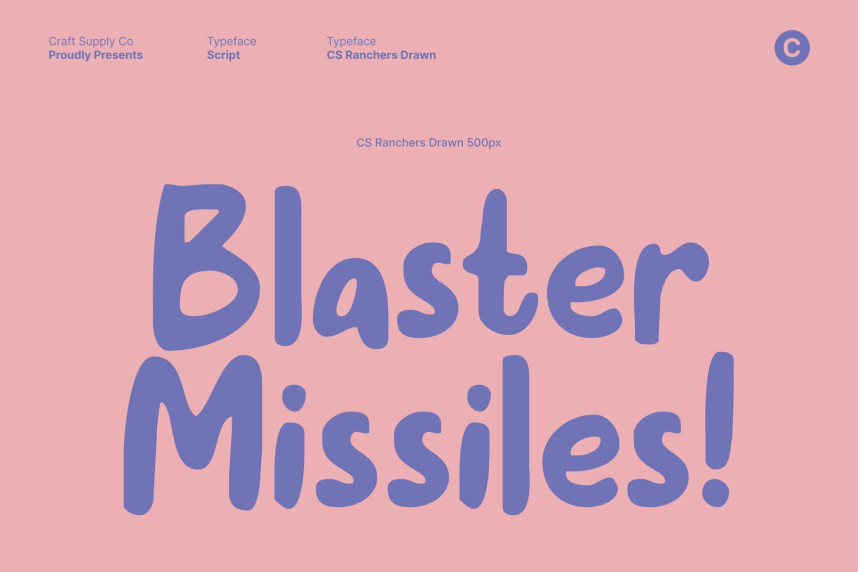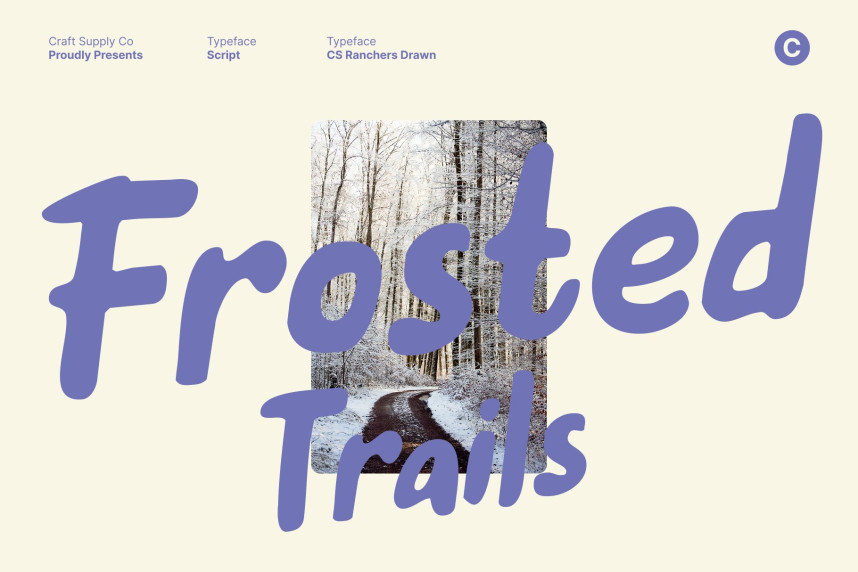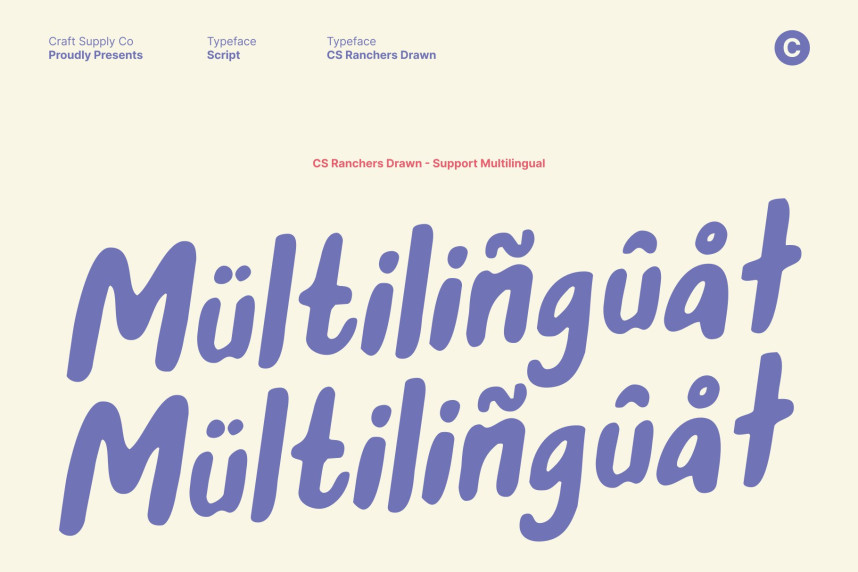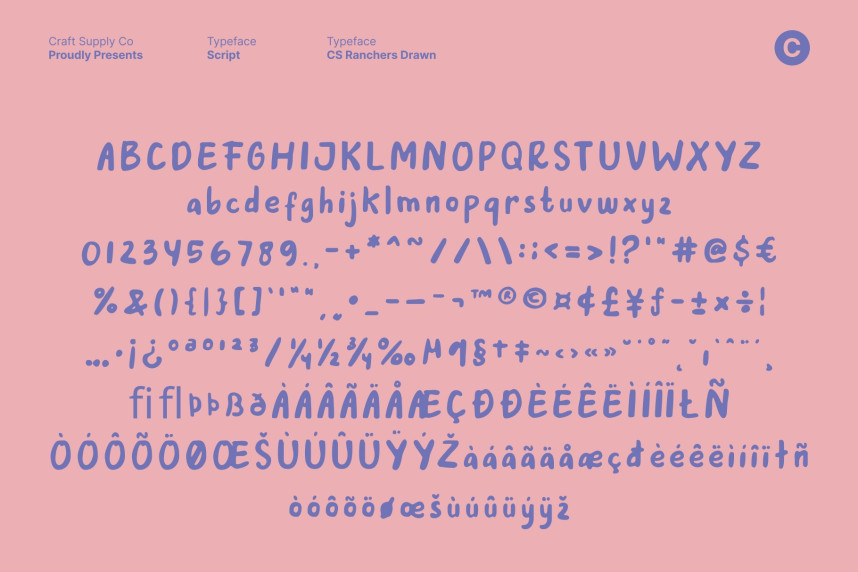
CS Ranchers Drawn Font
CS Ranchers Drawn Font – Expressive Brush Display with Natural Hand-Brushed Texture Artistic Brush Strokes with Bold Modern Expression. This is a brush display font crafted to capture the dynamic beauty of natural hand-brushed lettering. Its expressive strokes and textured edges radiate artistic energy, giving every composition a handcrafted yet contemporary feel. The font delivers bold impact while remaining approachable, making it perfect for designs that demand movement, creativity, and visual presence.